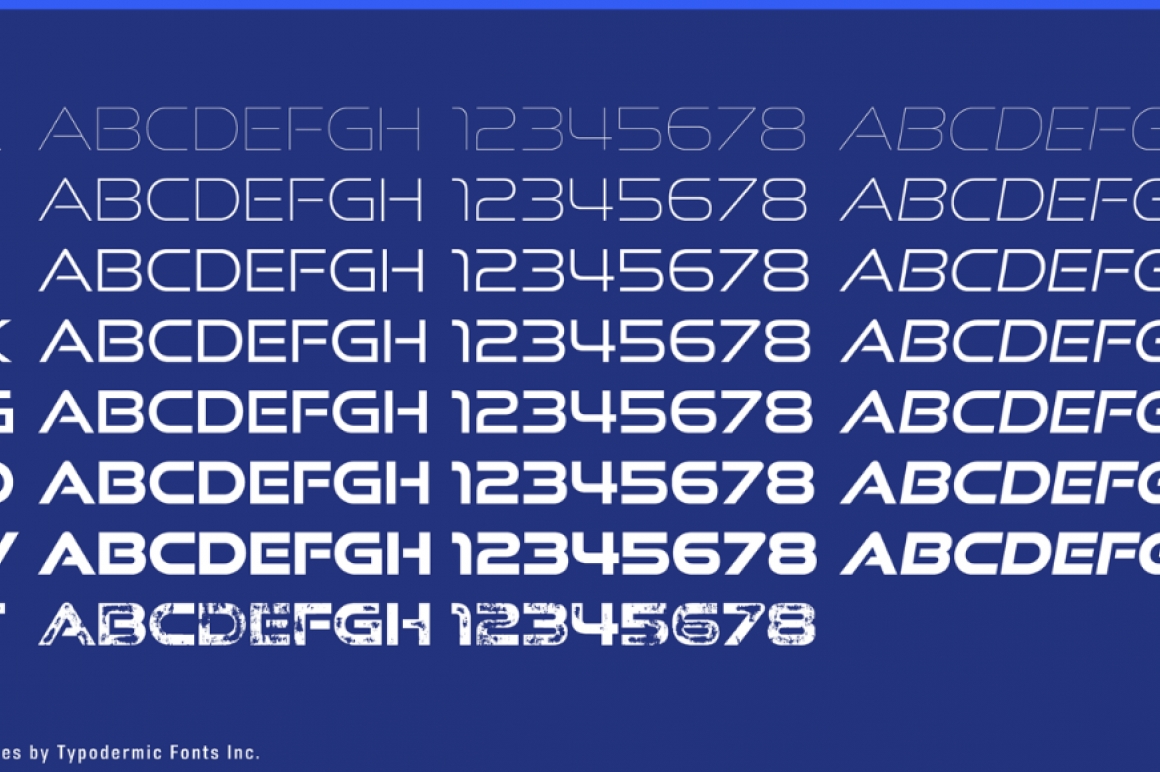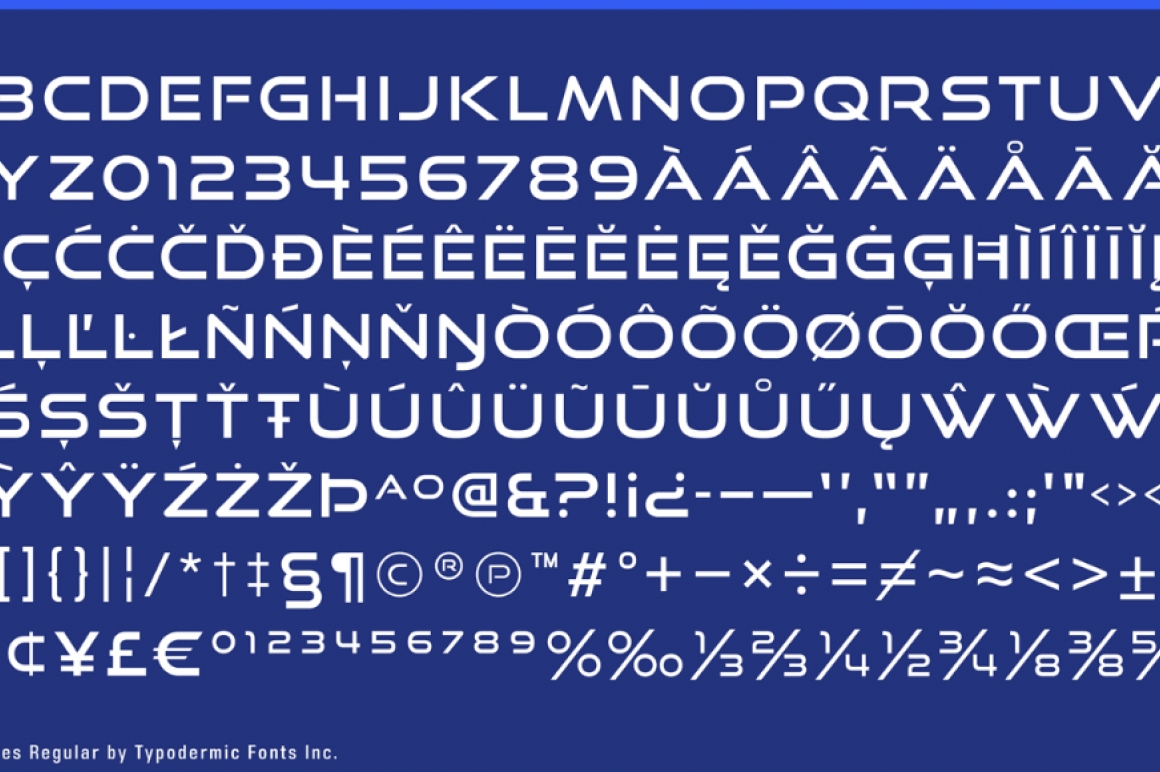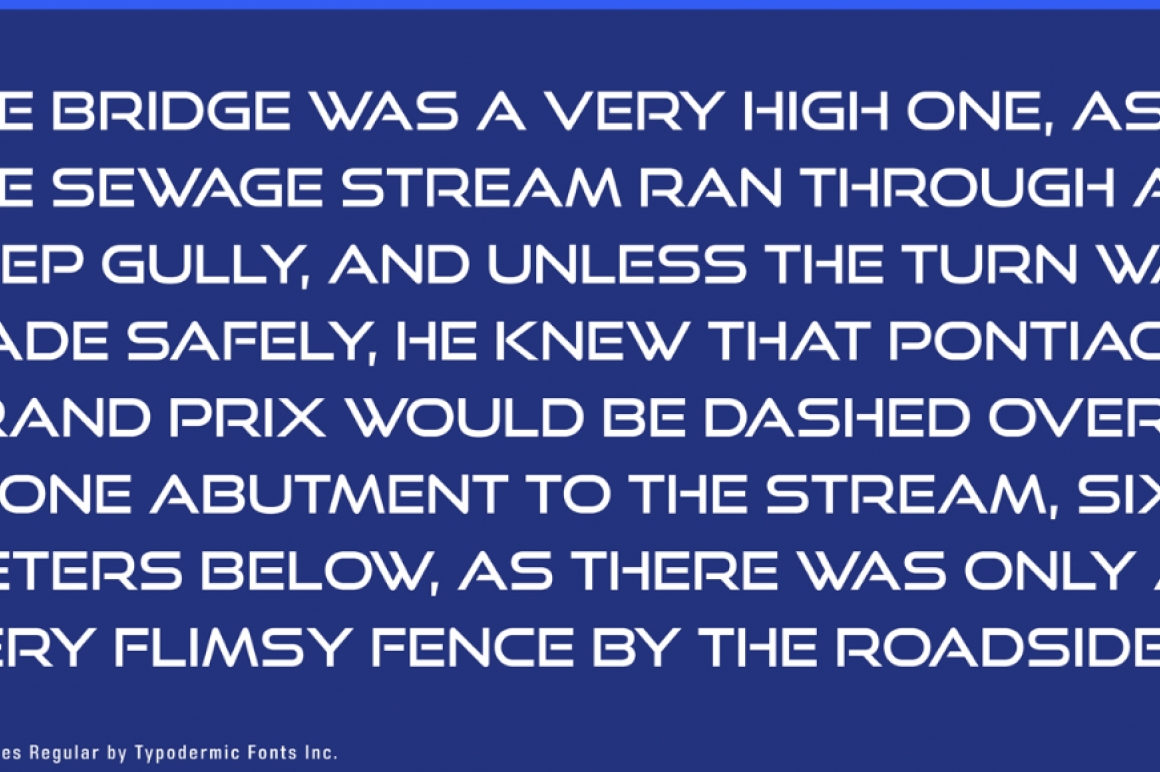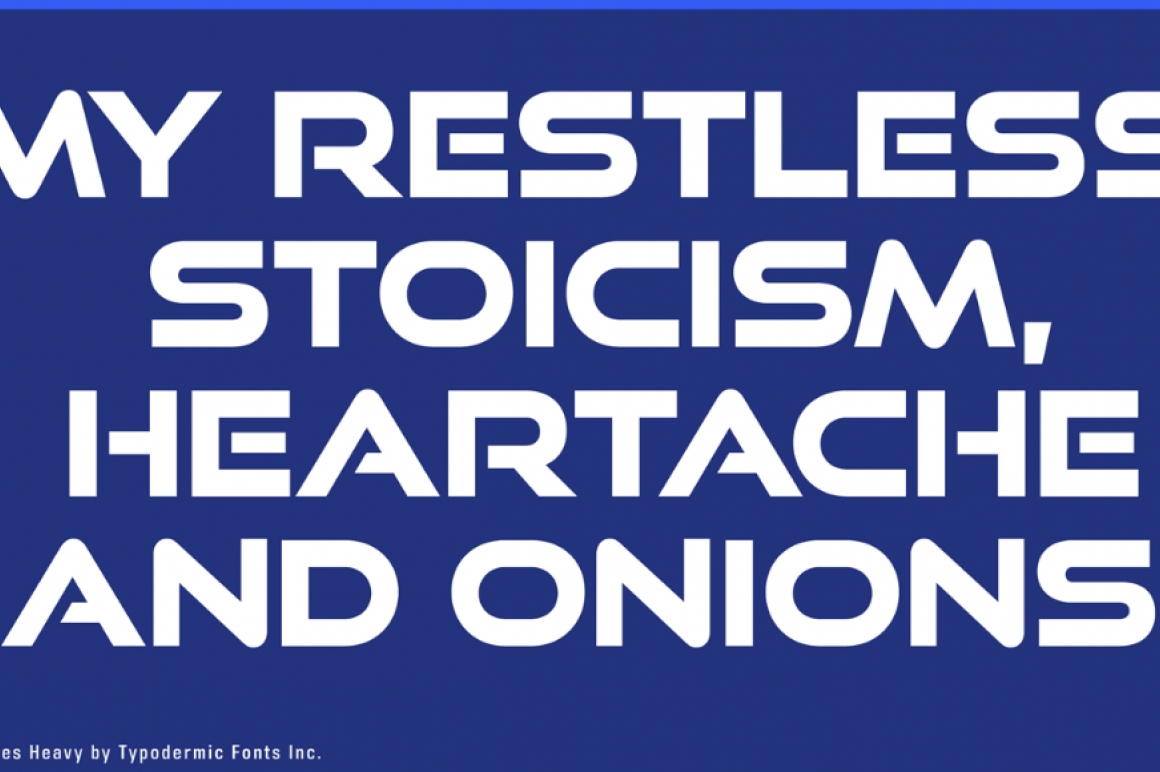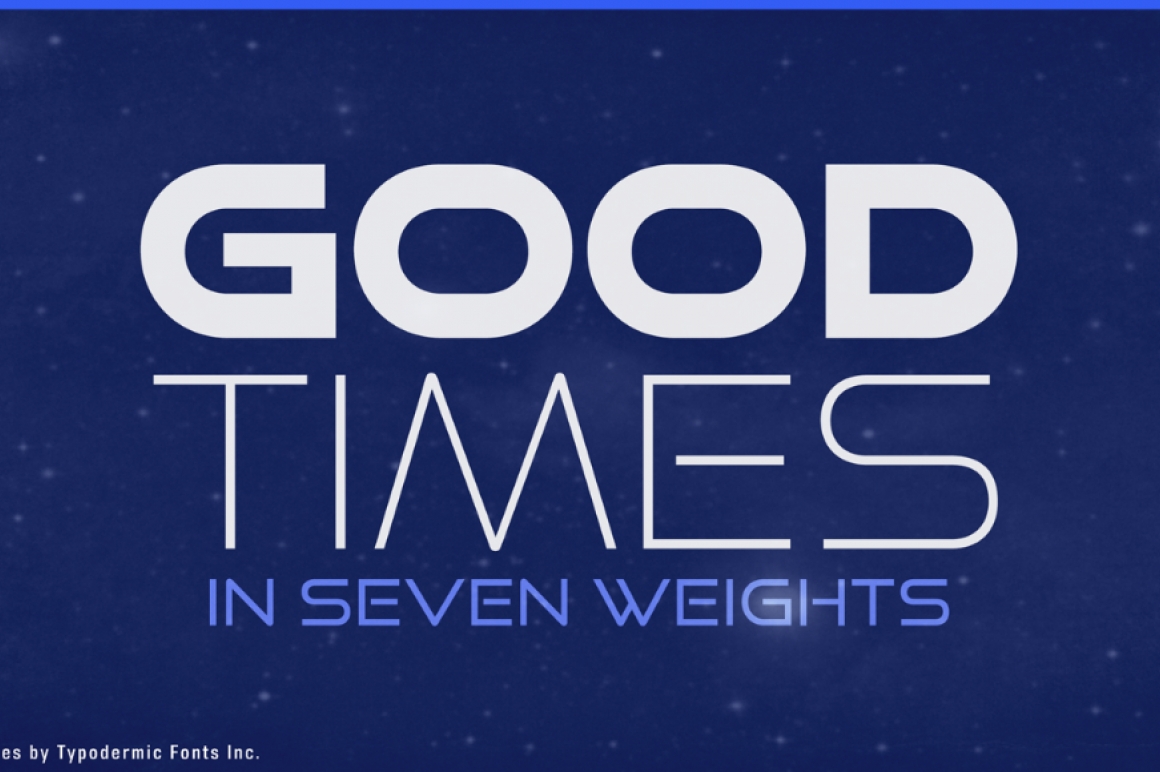
Good Times
Good Times is a 1980’s techno headliner, inspired by the lettering used on Pontiac cars from about 1989-1994. Uniform lines, capsule shapes and disconnected strokes give Good Times, a stark, scientific feeling. Good Times was created in 1998 and has since been expanded into 15 styles including a rusty variation called Good Times Bad Times. When you’re using Good Times Bad Times in an OpenType savvy application, common letter pairs will be automatically replaced by custom pairs for a more realistic, flaked metal effect.